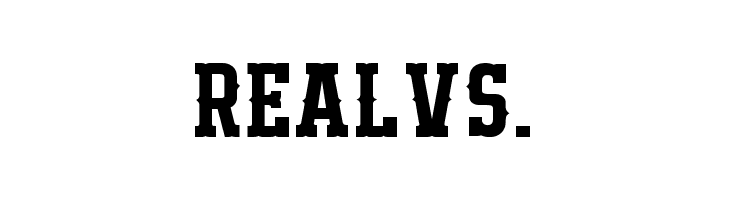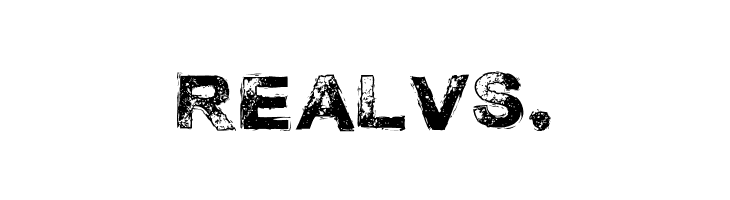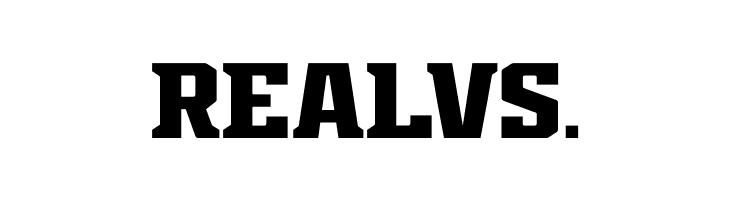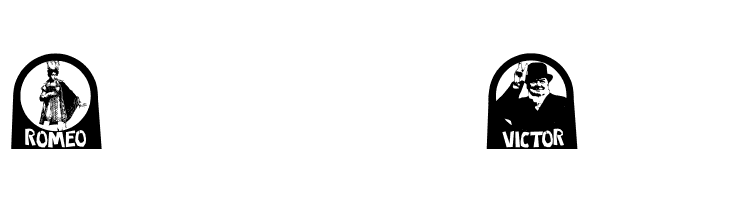
A bold, illustrative font depicting the NATO phonetic alphabet with unique graphics.
A bold, decorative font with curvy serifs and a vintage flair.
A bold, decorative serif font with modern and vintage influences.
A bold, distressed font with a grunge texture and rugged edges.
A bold, distressed font with a gritty, textured appearance.